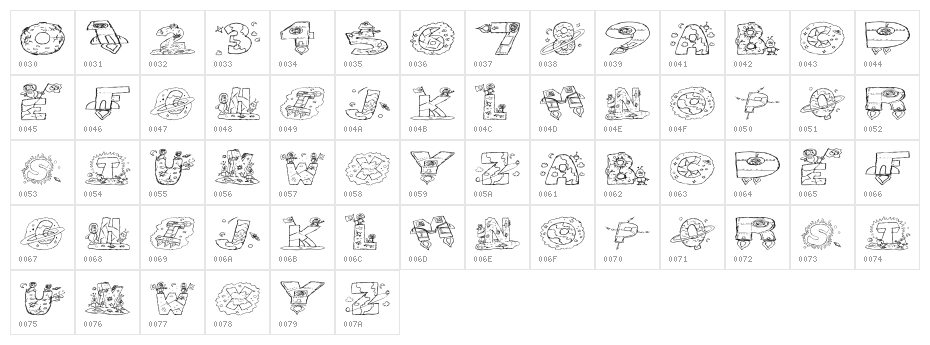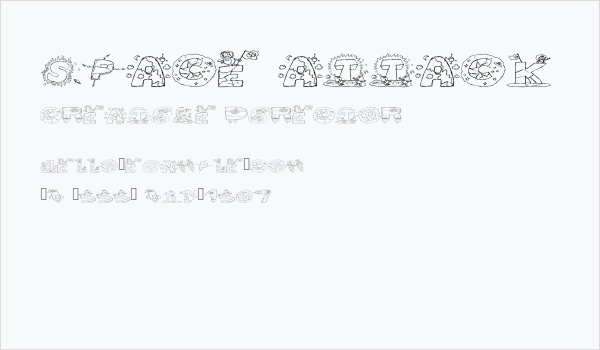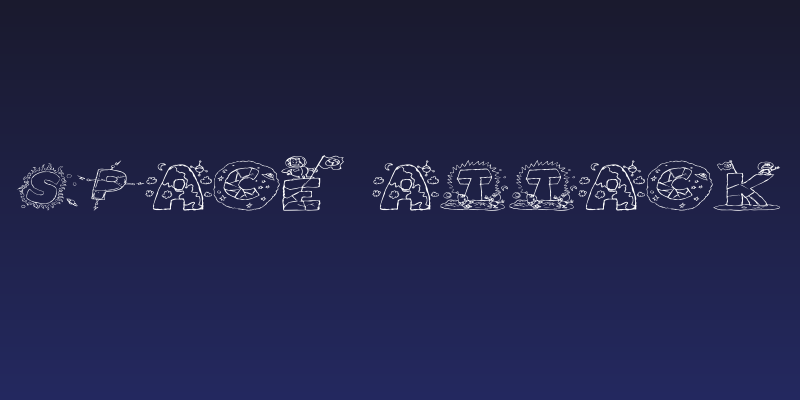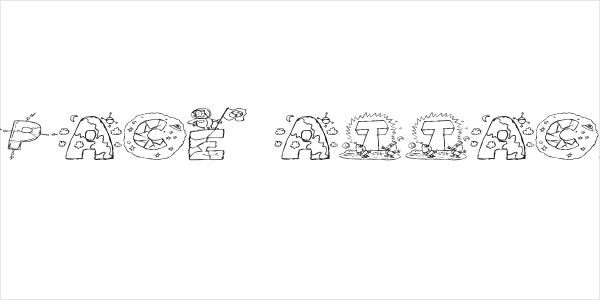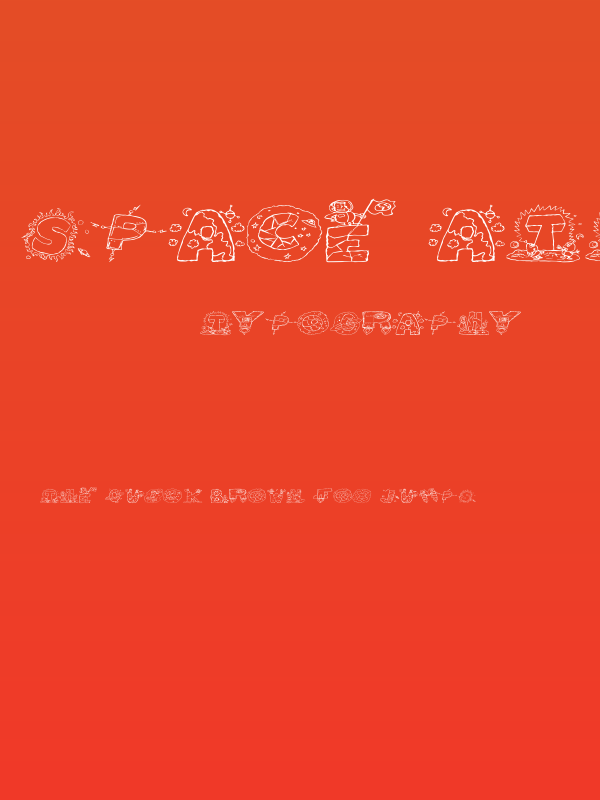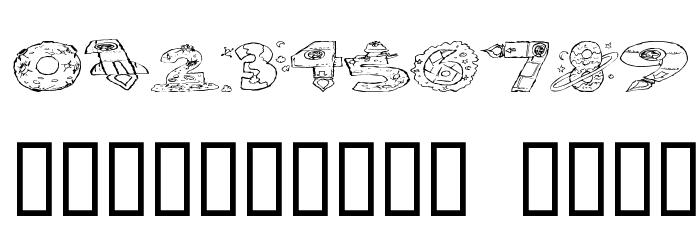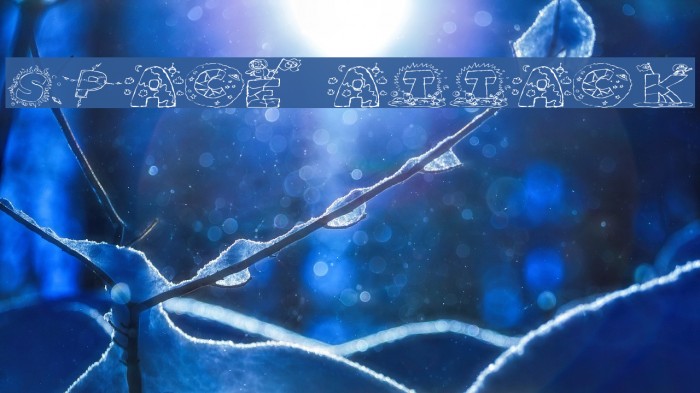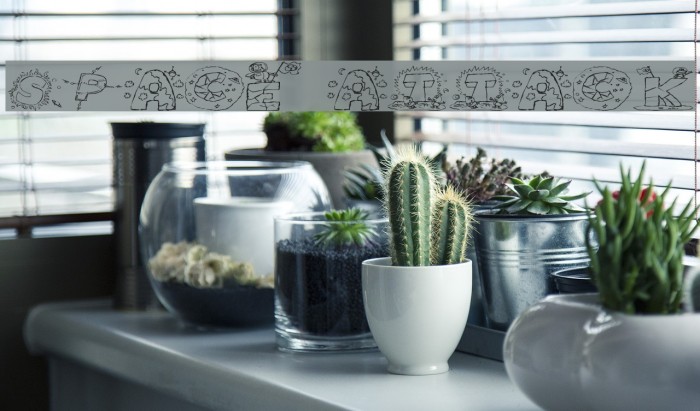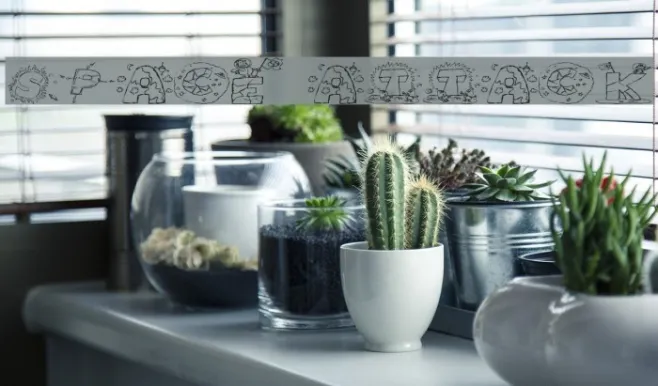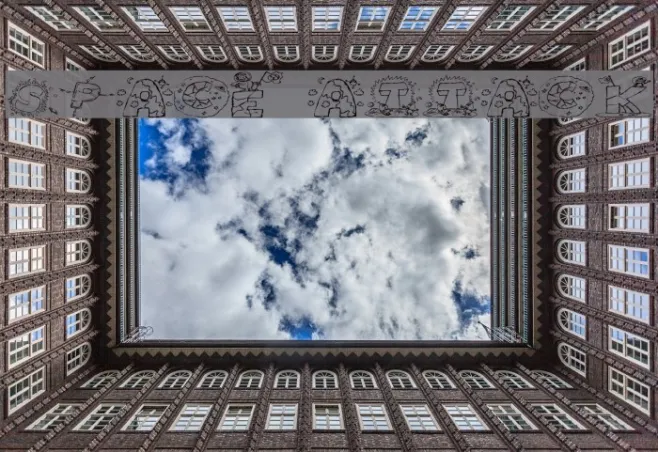
Space Attack Font
Space Attack Description
This font is a playful and imaginative display typeface inspired by space and sci-fi themes. Each character is uniquely designed with elements like rockets, planets, and stars, creating a whimsical and adventurous feel. The letters are bold and decorative, with intricate details that make them stand out. This font is perfect for projects that require a fun and engaging visual impact, such as children's books, posters, or themed event invitations. The numbers and special characters also follow the same creative design, ensuring consistency across all text elements.
| Proposed Projects | Ideal for children's books, sci-fi posters, themed event invitations, and creative branding. |